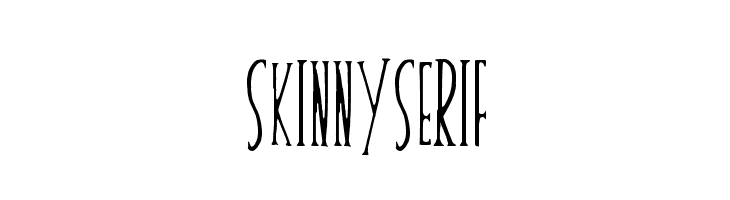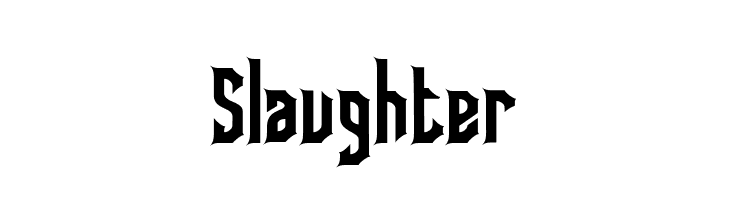
• Sisterli
A decorative cursive font with elegant loops and swirls.
• Sitdown
A bold, geometric font with an industrial and modern feel.
• Skeptisgraph
A fluid and elegant handwritten font with smooth, flowing lines.
• Skinny Marker
• SkinnyChick
• skinnyserif
A tall, slender serif font with elegant, elongated characters.
• Slash Regular
A dynamic and fluid script font with elegant, flowing letterforms.
• Slaughter
A bold, Gothic-inspired font with sharp, angular edges.
• Sleeping in Lecture
A bold, 3D hand-drawn font with a playful, dynamic style.
• SmallTall
An elongated, narrow font with a striking vertical emphasis.